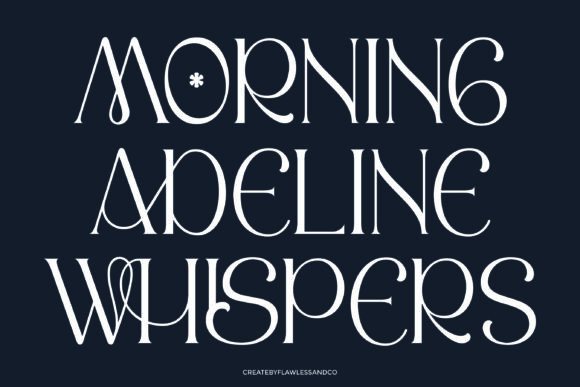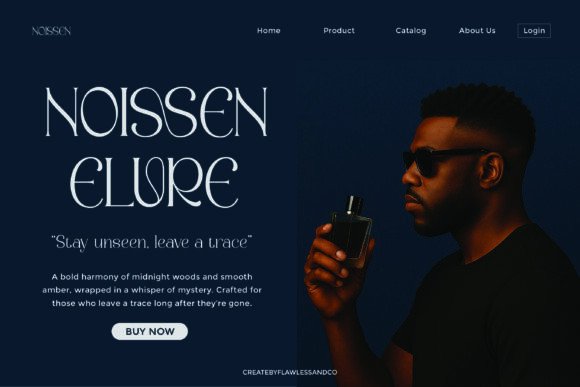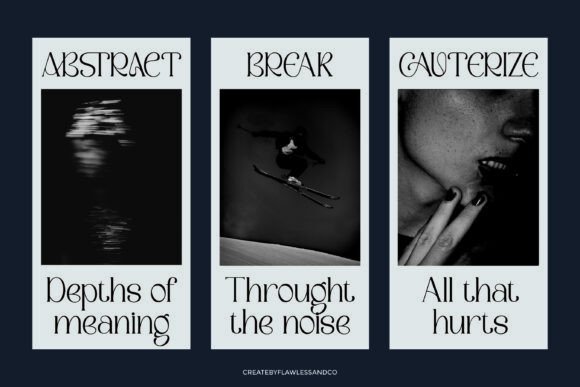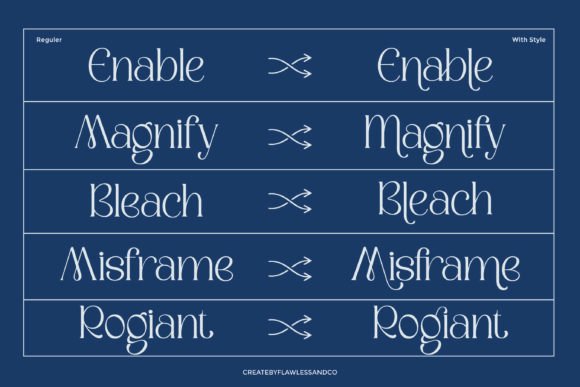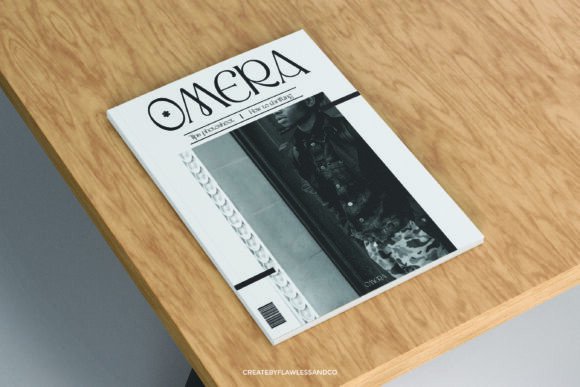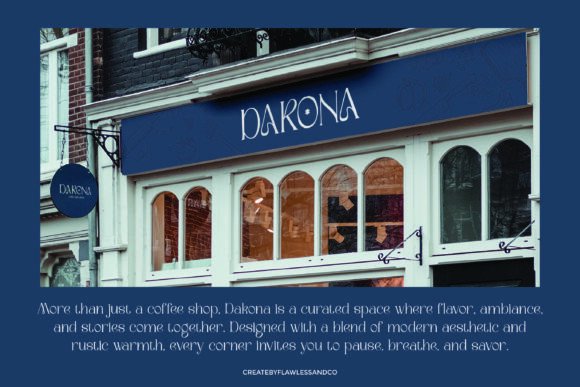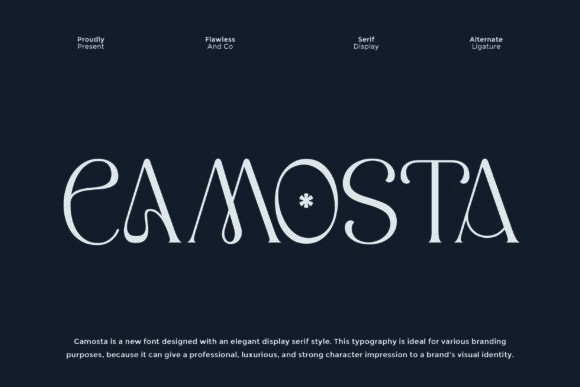
Introducing Camosta Font: Elevate Your Designs with Sophistication and Elegance
In the world of typography, a font can make or break a design. For designers and crafters seeking to add a touch of luxury and sophistication to their work, Camosta Font is an exceptional choice. This stunning serif display font combines artistic elegance with a bold yet refined aesthetic, making it perfect for a wide range of applications.
The Art of Camosta: A Blend of Style and Sophistication
Camosta is a masterfully crafted font that boasts a unique blend of stylish curves and striking alternates. Its sophisticated serif design ensures that it stands out in any context, whether used for branding, editorial projects, or high-end packaging. The font’s elegant features and refined lines evoke a sense of luxury, making it an ideal choice for designers looking to elevate their work.
Key Features of Camosta Font
- Sophisticated Serif Design: Camosta’s serif design adds a touch of classic elegance to any project, making it perfect for high-end applications.
- Striking Alternates: The font’s alternate characters provide a range of creative options, allowing designers to add a unique twist to their work.
- Bold yet Refined: Camosta strikes the perfect balance between boldness and refinement, making it suitable for a wide range of design applications.
- Luxurious and Professional: The font’s sophisticated design and elegant lines evoke a sense of luxury and professionalism, making it ideal for high-end branding and packaging.
Applications for Camosta Font
Camosta’s versatility makes it suitable for a variety of design applications, including:
- Branding: Use Camosta to create a lasting impression with your brand identity. Its sophisticated design and elegant lines make it perfect for logos, business cards, and other marketing materials.
- Editorial Design: Add a touch of luxury to your editorial projects, such as magazines, newspapers, and books, with Camosta’s refined serif design.
- High-End Packaging: Elevate your packaging designs with Camosta’s sophisticated and elegant aesthetic, perfect for luxury brands and high-end products.
Why Choose Camosta Font?
With so many fonts available, why choose Camosta? Here are just a few reasons why designers and crafters are falling in love with this exceptional font:
- Unique and Memorable: Camosta’s striking design and elegant lines make it a memorable font that will leave a lasting impression on your audience.
- Versatile: The font’s versatility makes it suitable for a wide range of design applications, from branding and editorial design to high-end packaging.
- Easy to Read: Despite its bold and elegant design, Camosta remains easy to read, making it perfect for body text and headlines.
Tips for Using Camosta Font
To get the most out of Camosta Font, here are a few tips to keep in mind:
- Experiment with Alternates: Take advantage of Camosta’s striking alternates to add a unique twist to your design.
- Pair with Complementary Fonts: Pair Camosta with complementary fonts to create a harmonious and visually appealing design.
- Use for Headlines and Titles: Camosta’s bold and elegant design makes it perfect for headlines and titles, adding a touch of luxury to your design.
Camosta Font is an exceptional choice for designers and crafters seeking to add a touch of sophistication and elegance to their work. With its unique blend of stylish curves and striking alternates, this stunning serif display font is perfect for a wide range of design applications. Whether used for branding, editorial design, or high-end packaging, Camosta is sure to elevate your designs and leave a lasting impression on your audience.